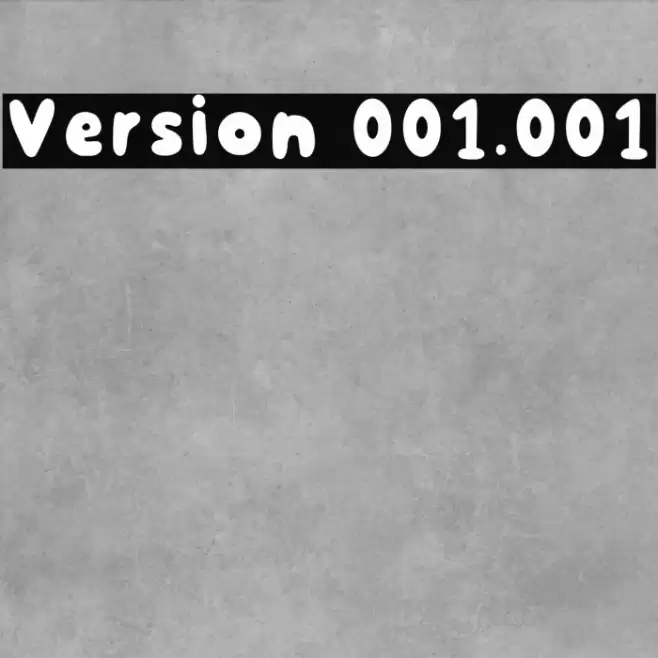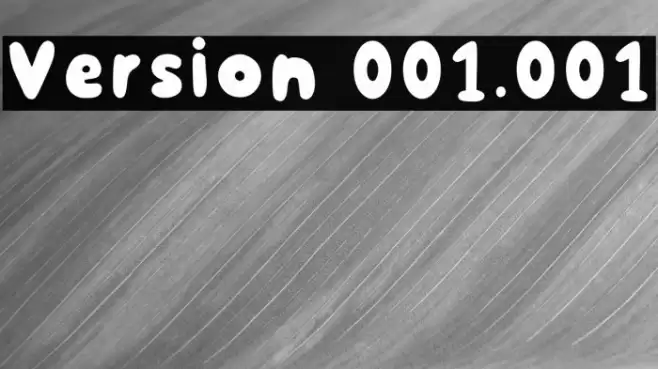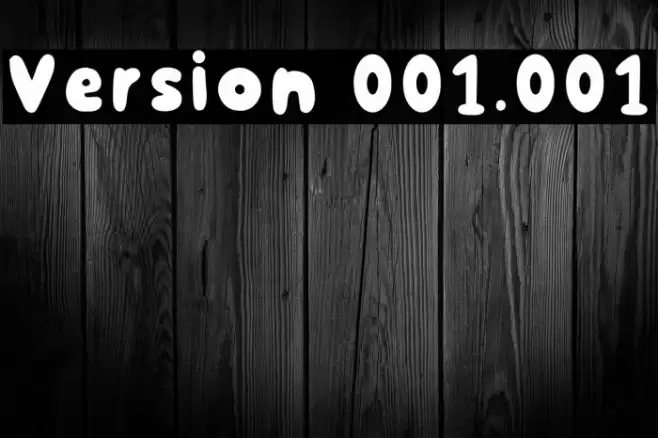
Version 001.001 Font
Version 001.001 Description
This font features a playful and bold style with rounded edges and a bubbly appearance. The characters are thick and uniform, giving a sense of friendliness and approachability. The uppercase and lowercase letters maintain consistent proportions, with a slight emphasis on circular forms. The numbers and special characters follow the same design ethos, ensuring a cohesive look across all glyphs. This font's unique style makes it stand out, ideal for projects that require a fun and engaging visual element.
A playful, bold font with rounded, bubbly characters from Uncategorized fonts.
- Overall Style: Playful